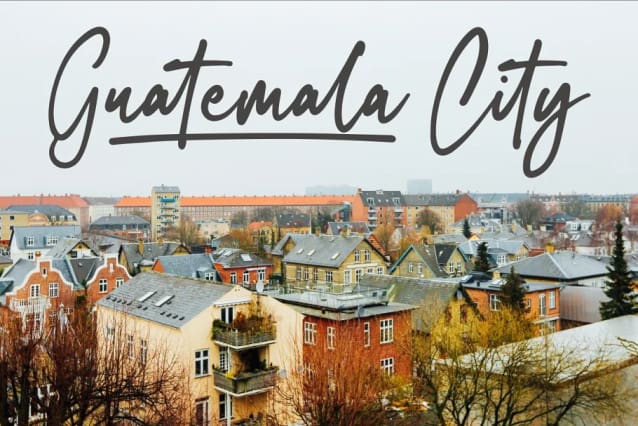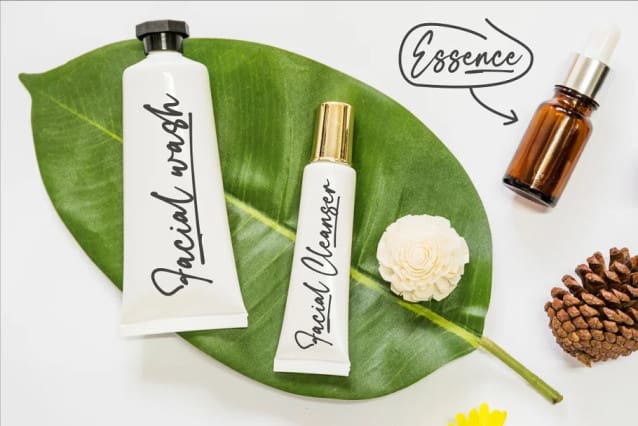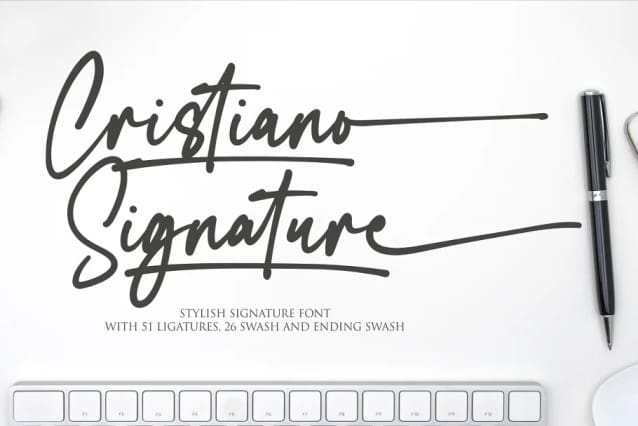
Cristiano Signature Font
Cristiano Signature Font a stylish signature font with 51 ligatures, 26 swash and ending swash. It features ligatures characters that will take your projects to the next level!
This font is PUA code which means you can easily access all the glyphs that are full of swash! It also features many special features including glyphs. font designs that are made for various vector designs, printing such as digital wedding blogs, online shops, social media, while printing can be used in the field of product clothing, accessories, bags, pins, logos, business cards, watermarks and many others …